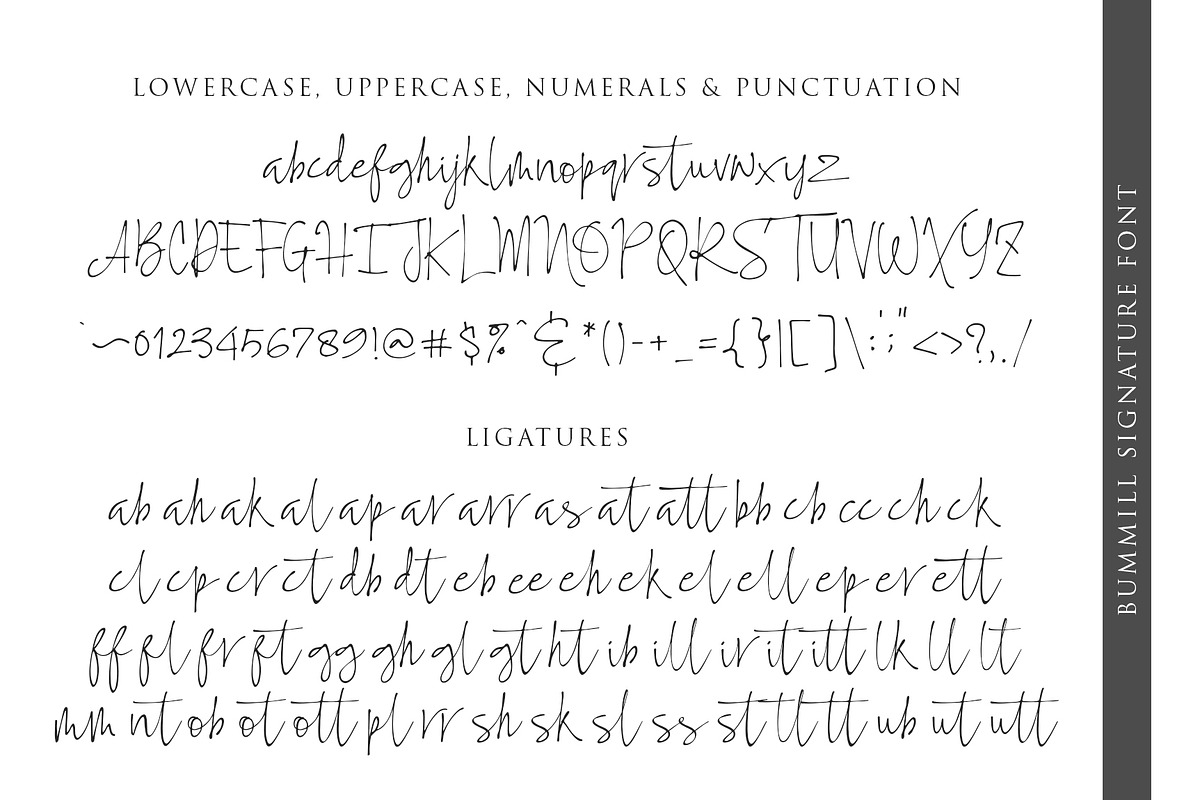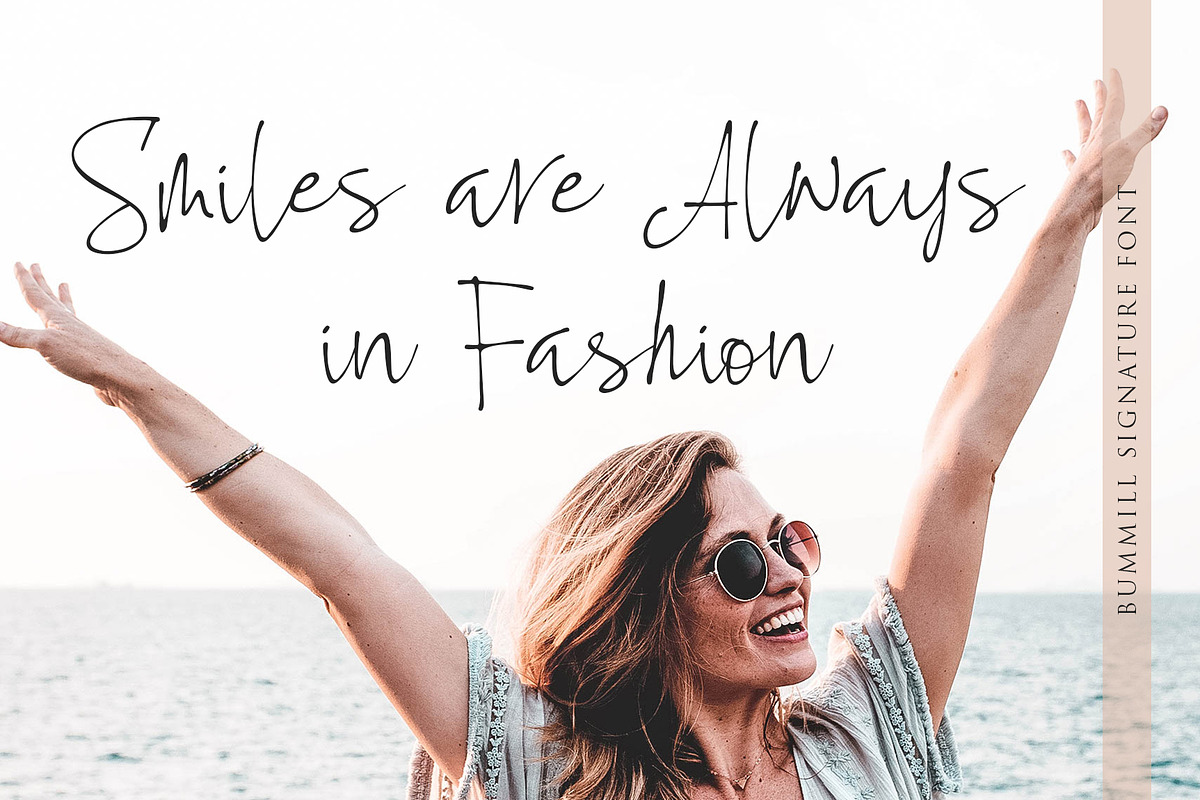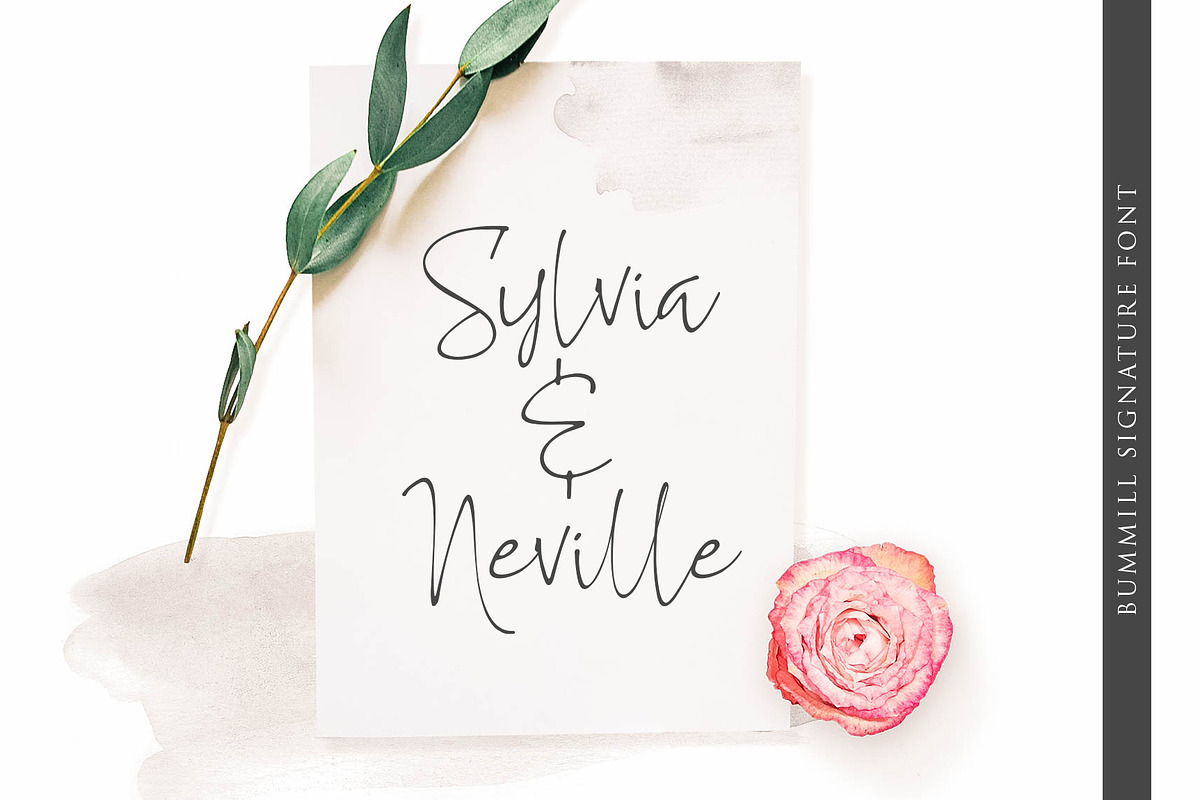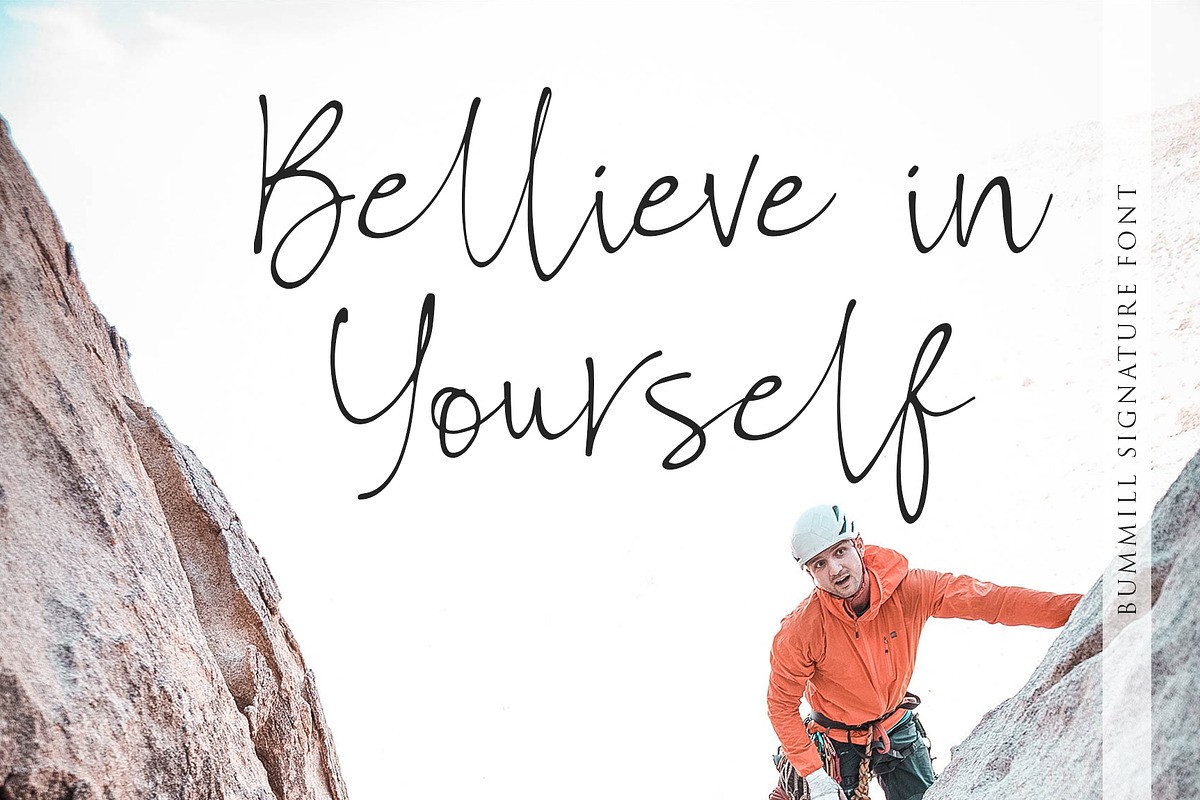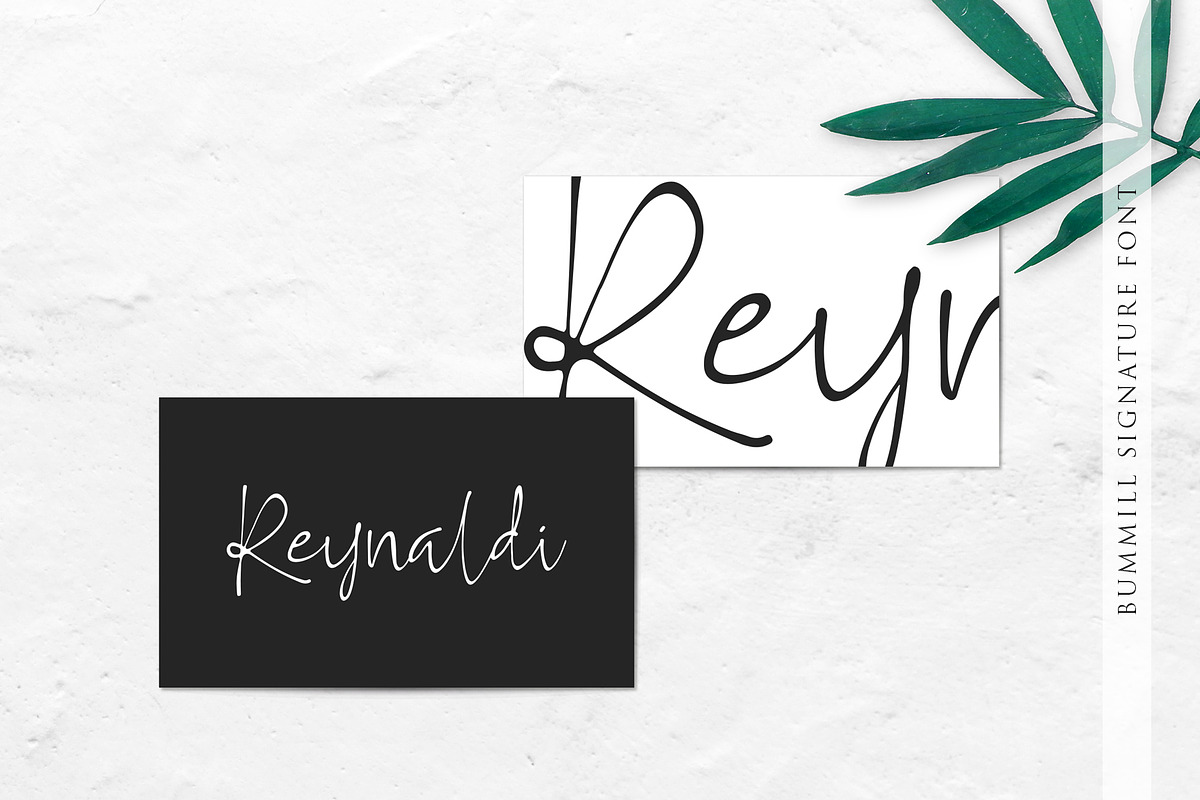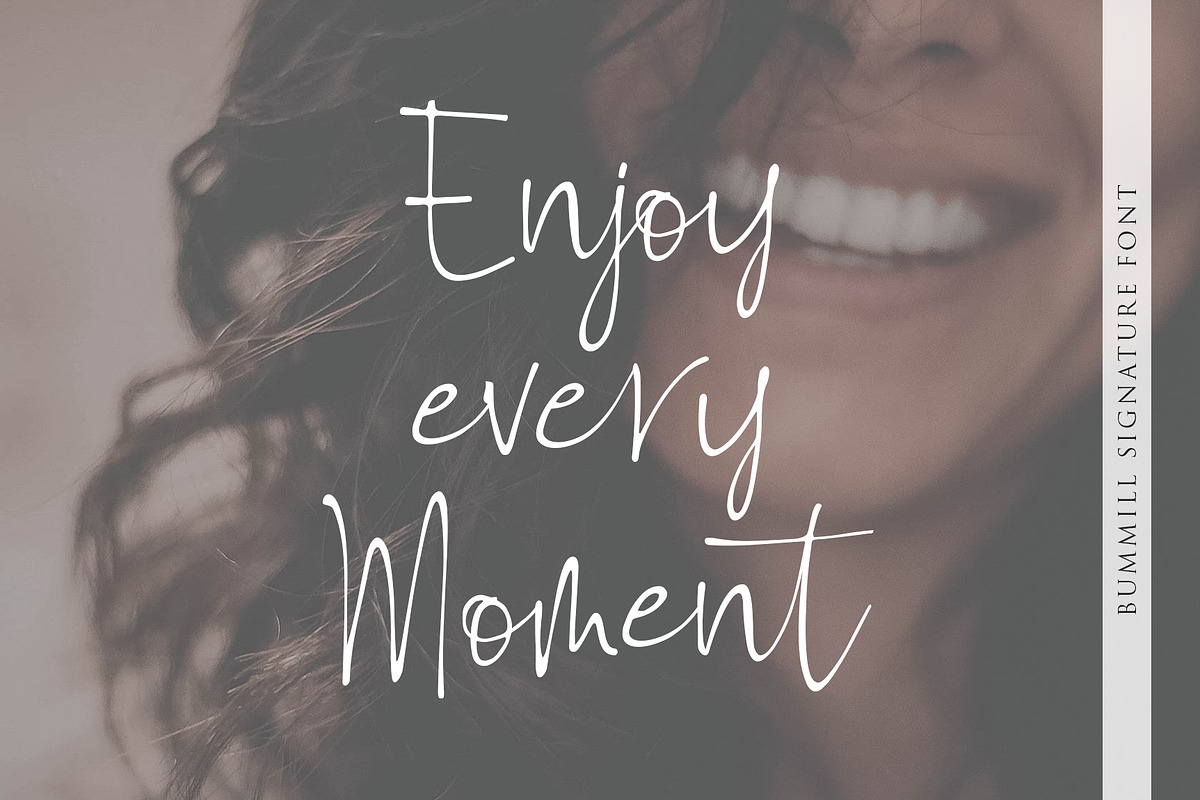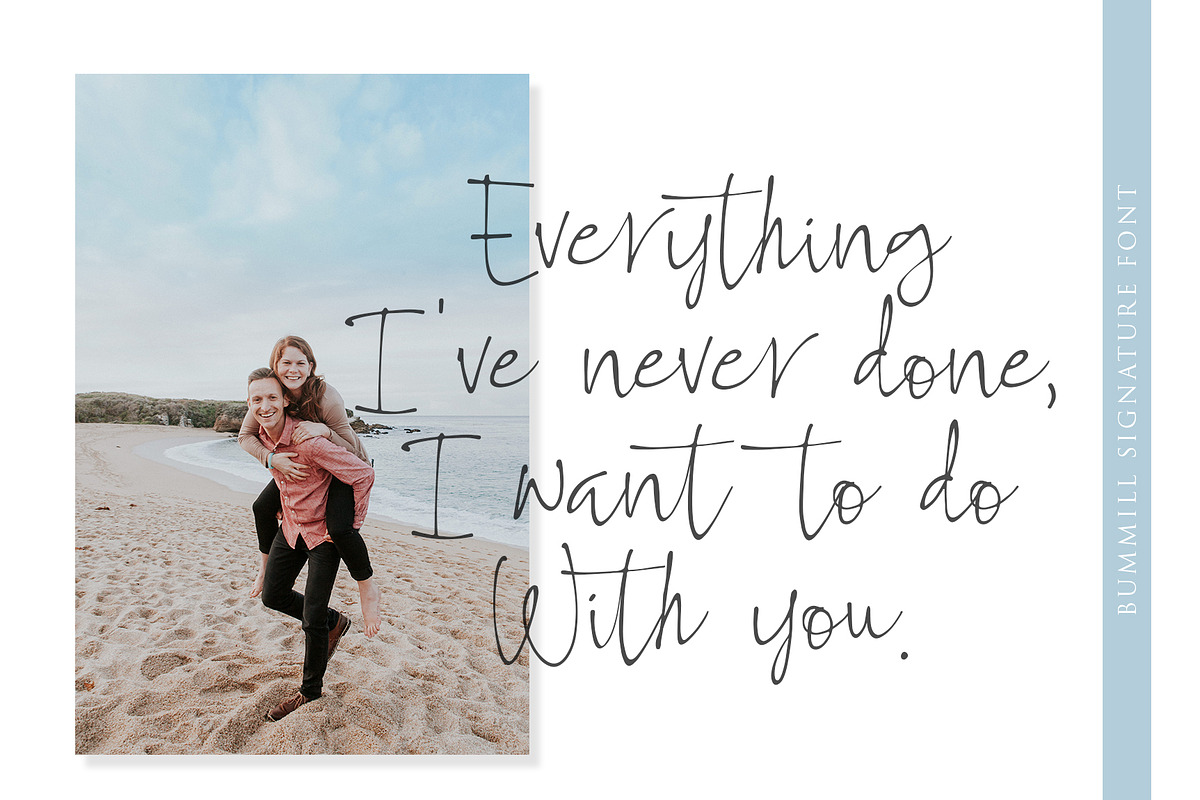
Bummill Signature Font
Bummill signature font allows you to create stunning and easy hand-lettering in an instant. Ideal for the logo, quotes, wedding, product label/packaging, fashion, letter, advertising, invitation, poster, merchandise, greeting cards, etc. This font came along with lots of ligatures option for more natural looks.
Ligatures : ab ah ak al ap ar arr as at att bb cb cc ch ck cl cp cr ct db dt eb ee eh ek el ell ep er ett ff fl fr ft gg gh gl gt ht ib ill ir it itt lk ll lt mm nt ob ot ott pl rr sh sk sl ss st tl tt ub ut utt
Bummill Signature Font by Awanstudio fits naturally into Branding, posters, packaging, typography.